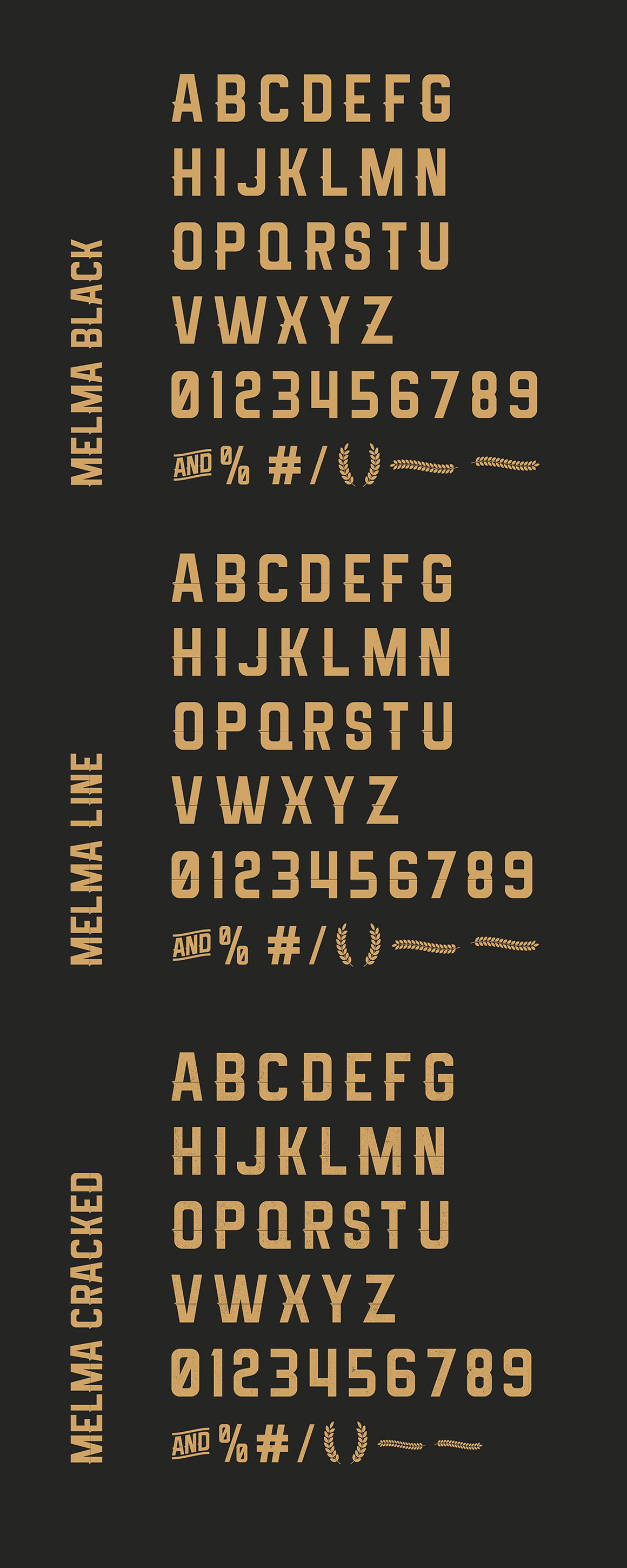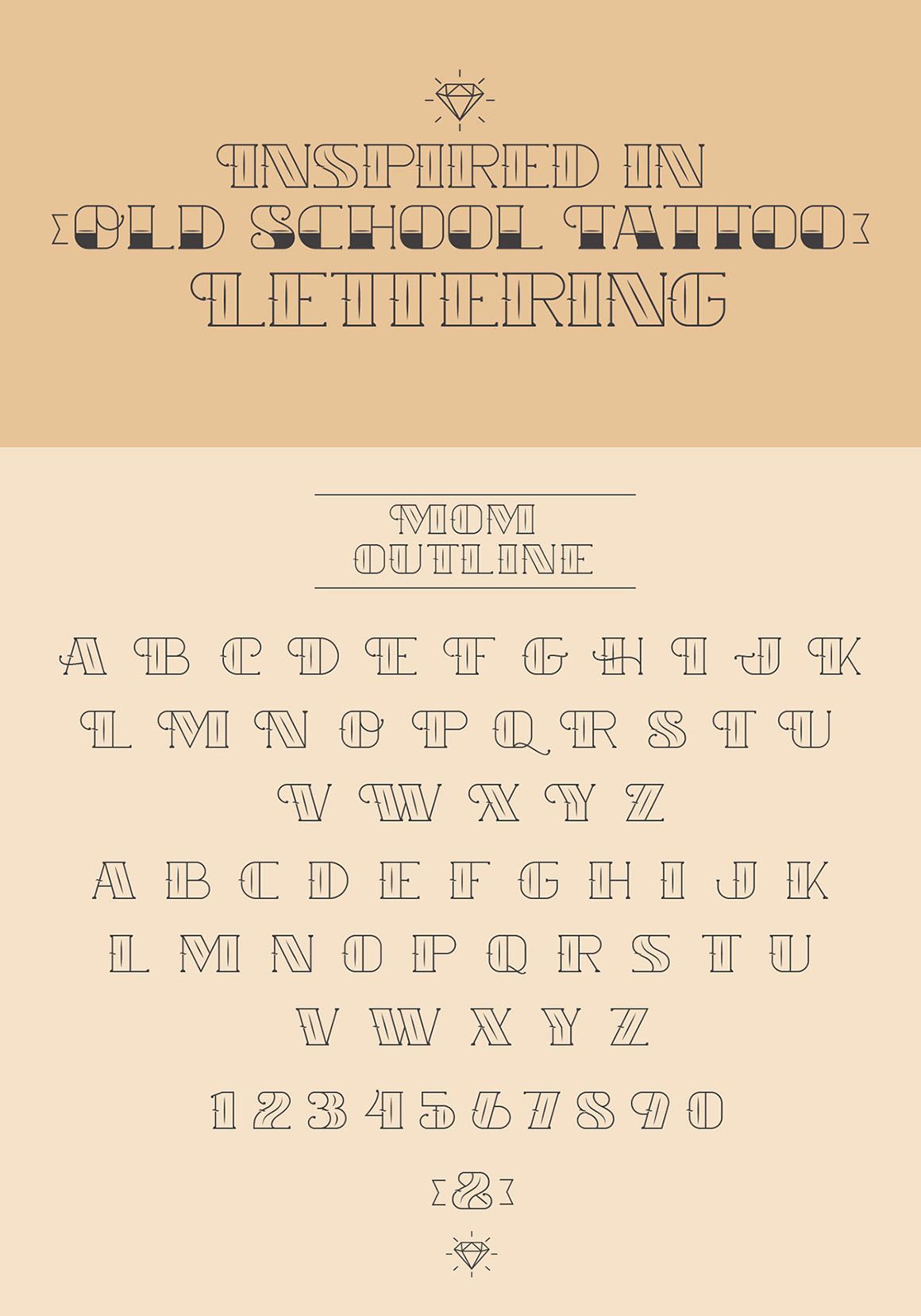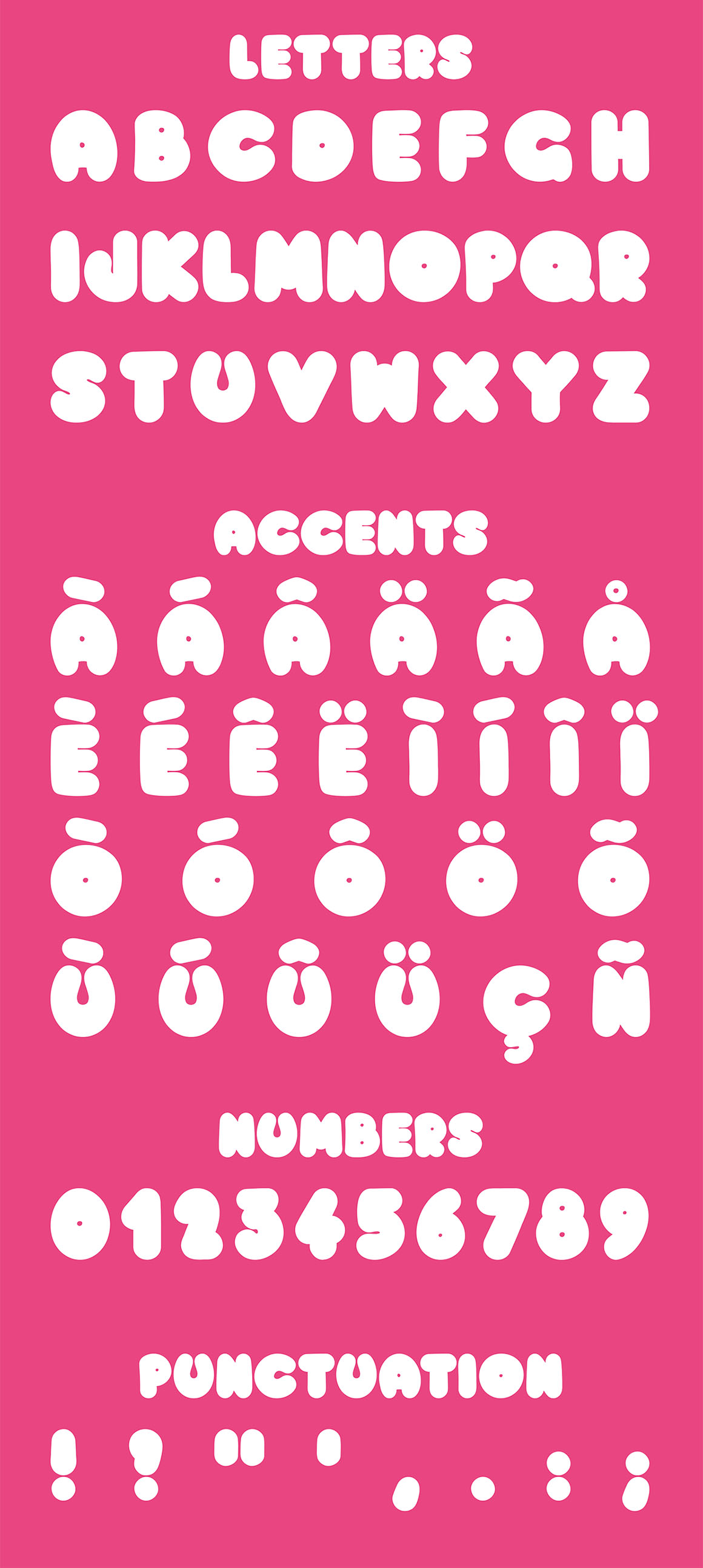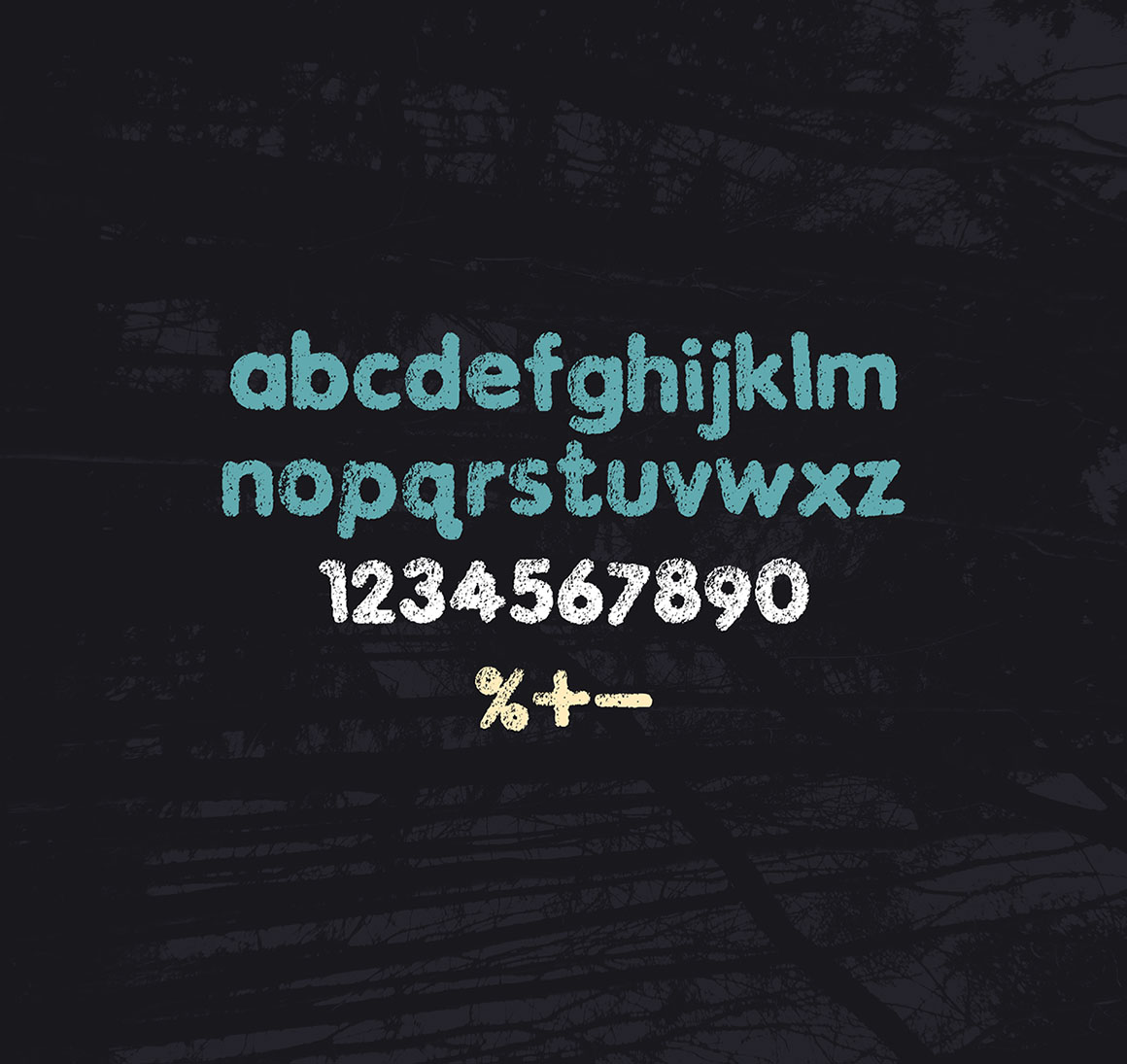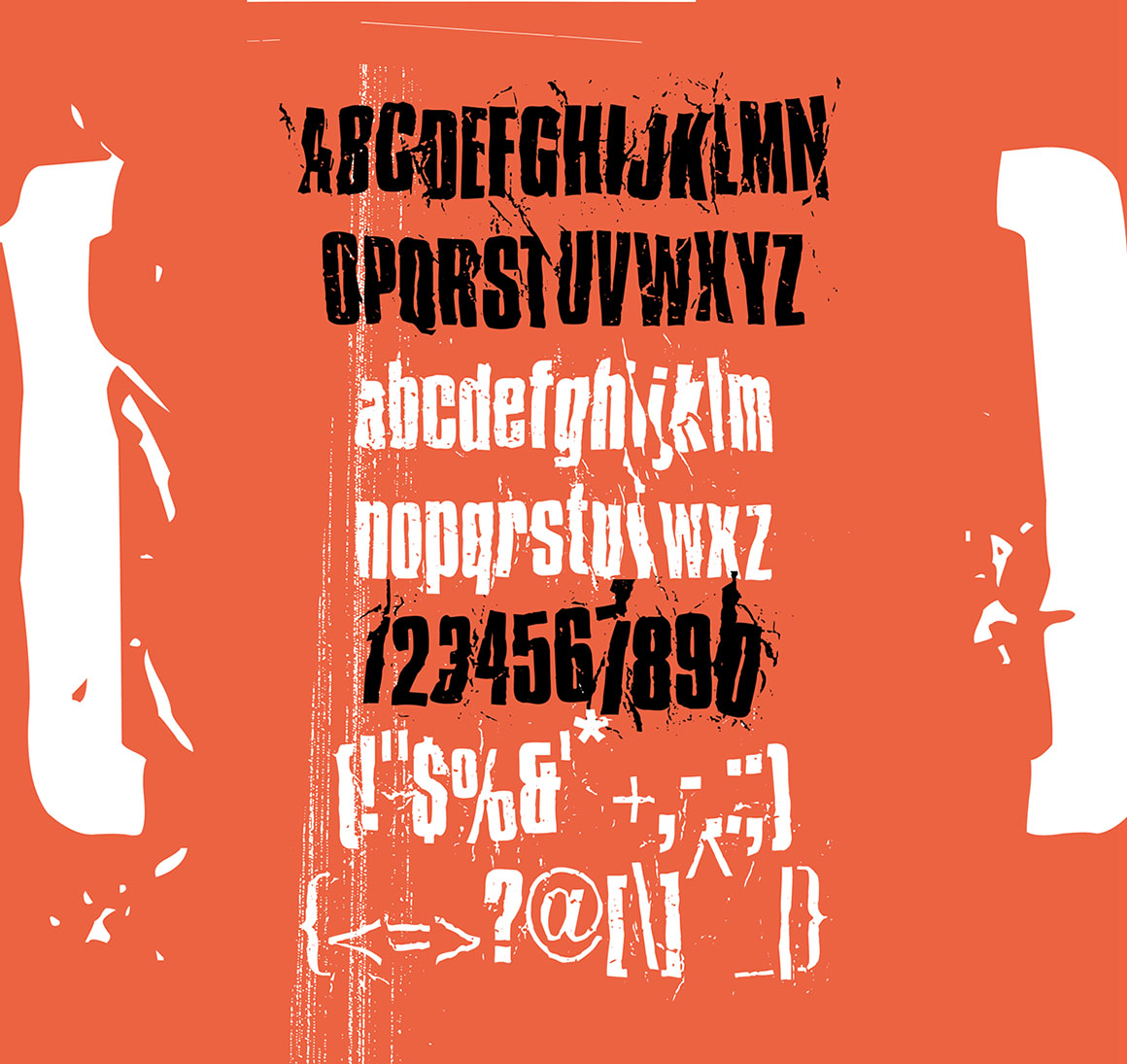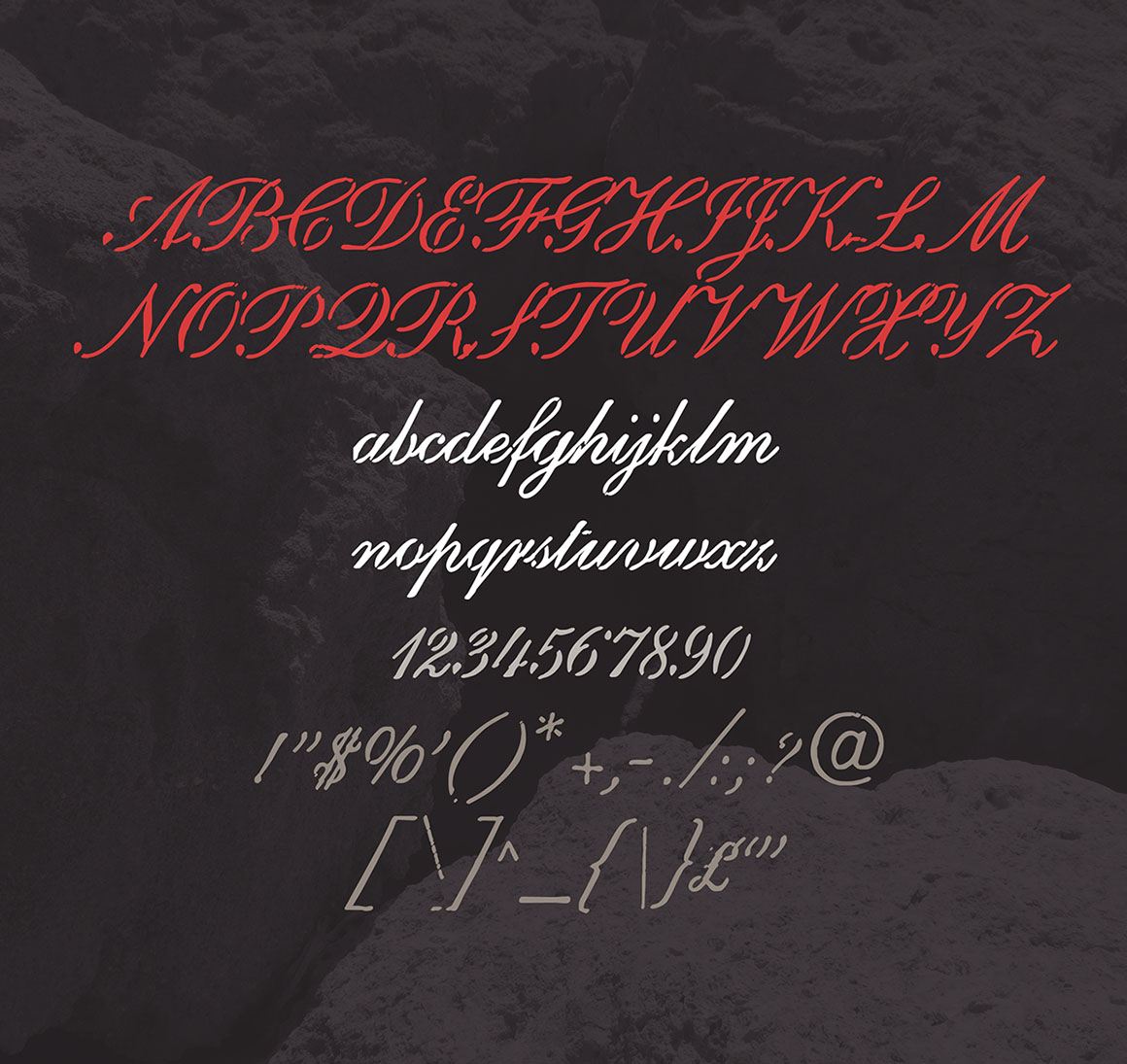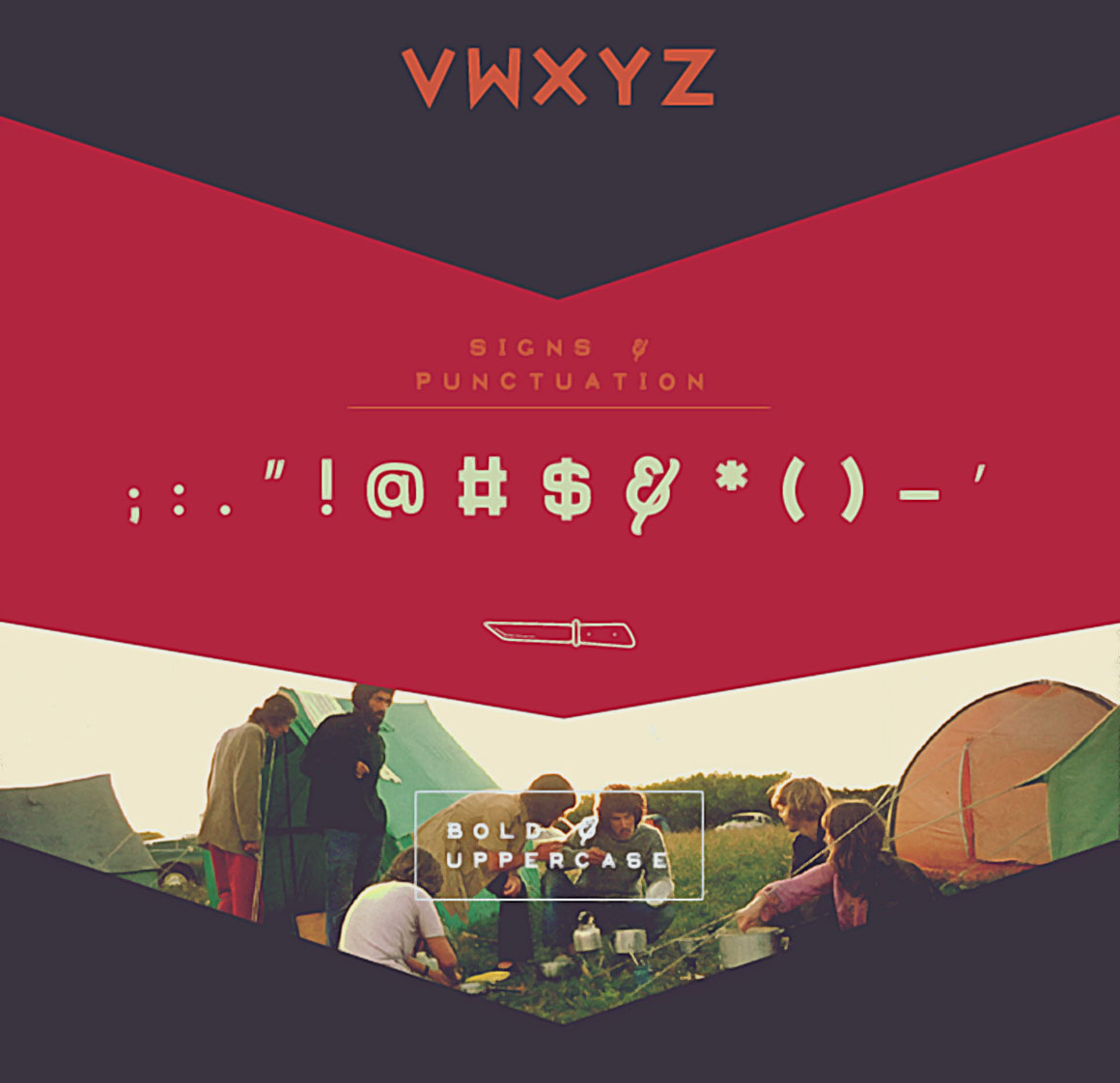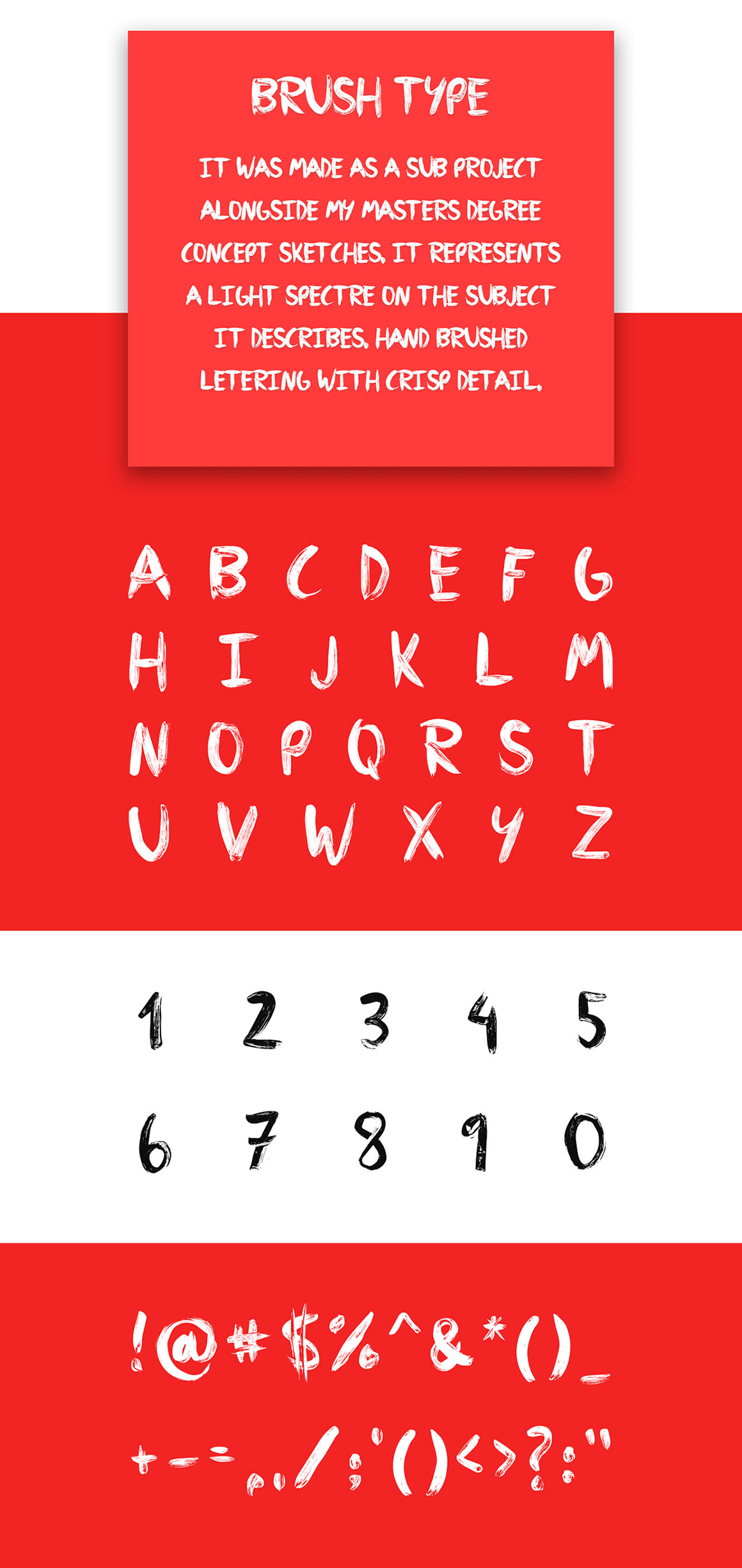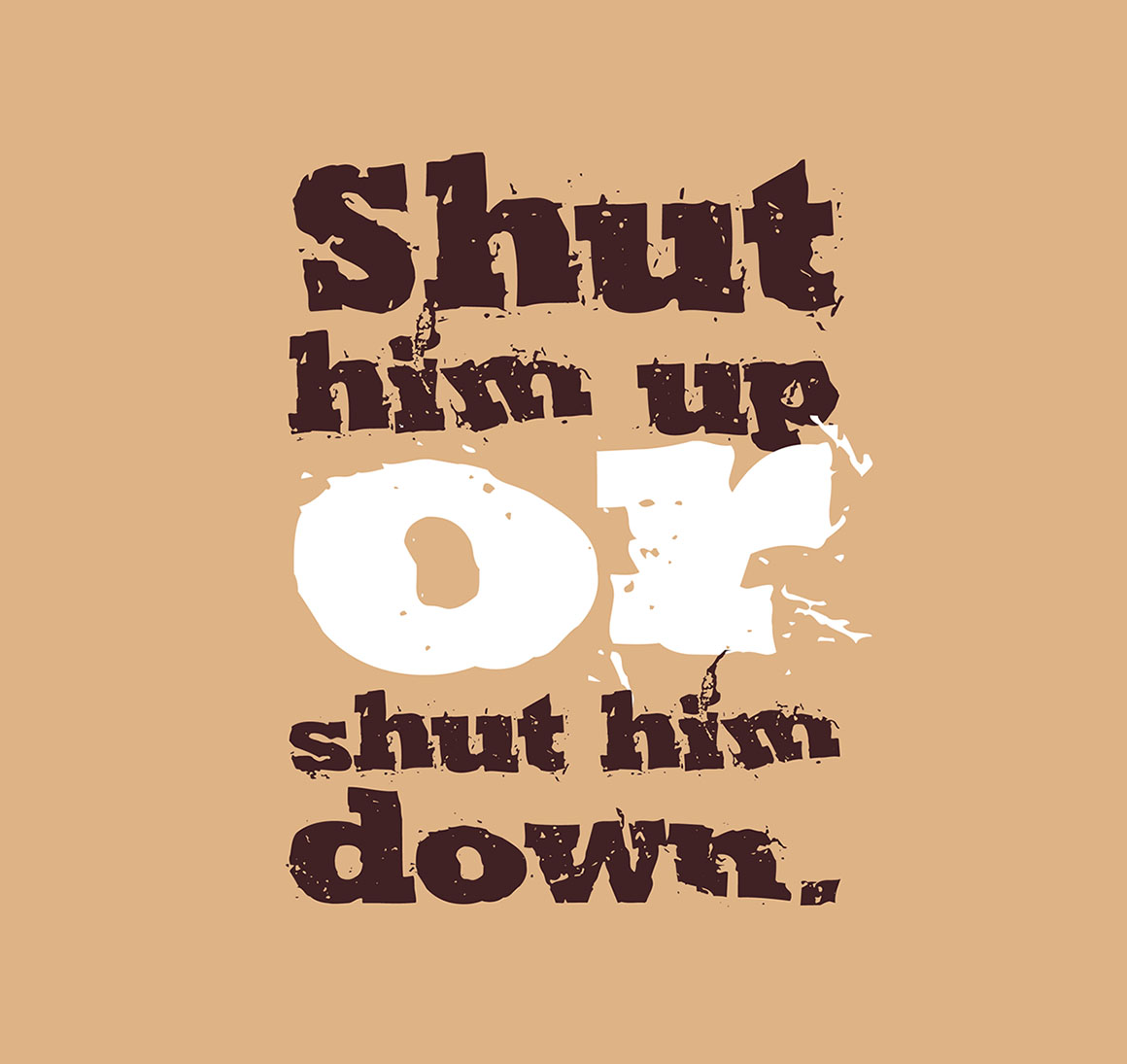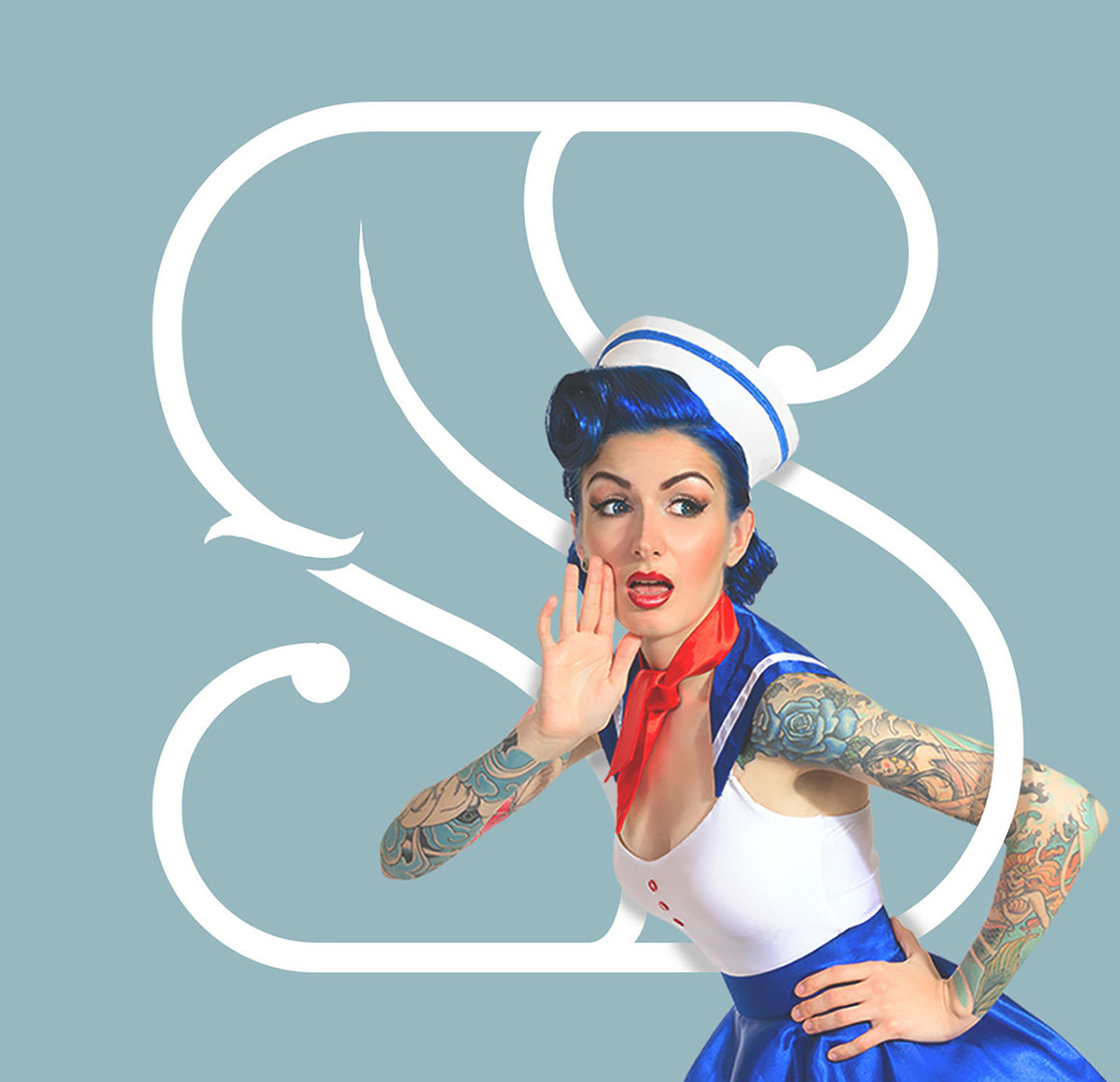
1. Dreamers Brush – Free Font by Get Studio
This cool brush handdrawn custom font is from Get Studio. Great for your new creative style artworks. Download & enjoy 😉
2. Banthers – Free Vintage Font by Agga Swist’blnk
This retro/vintage style custom font is from Agga Swist’blnk. An all caps font / typeface with amazing vintage style. Also contained special characters. Download and enjoy 😉
3. Fabfelt – Free Script Font by Fabien Despinoy
This cool free handdrawn script custom font is from Fabien Despinoy. Download & enjoy 😉
4. Barbaro – Free Serif Font by Iván Núñez
This cool vintage style serif custom font is from Iván Núñez. With unique vintage style and 2 alternatives is great for your new creative projects. Download and enjoy 😉
5. Tostada – Free Font by Iván Núñez
This cool vintage style custom font is from Iván Núñez. With unique vintage style is great for your new creative projects. Download and enjoy 😉
6. Aventura – Free Bold Font by Jimmy Kalman
This cool bold custom font is from Jimmy Kalman. Great for your new retro or vintage projects. Download and enjoy 😉
7. Xplor – Free Typeface by Jimmy Kalman
This cool and funny custom font is from Jimmy Kalman. Great for your new projects. Download and enjoy 😉
8. Curely – Free Handmade Font by Konstantine Studio
This cool and funny custom font is from Konstantine Studio. With unique hand drawn style and great for your new projects. Download and enjoy 😉
9. Furgatorio – Free Font by Aaron Amar
This cool custom font is from Aaron Amar. With unique vintage style and great for your new projects. Download and enjoy 😉
10. Melma – Free Font by Rafa Miguel
This unique custom font is from Rafa Miguel. With 3 styles is great for your new projects. Download and enjoy 😉
11. Mom – Free Retro Font by Rafa Miguel
This unique retro style custom font is from Rafa Miguel. With 2 styles is great for your new projects. Download and enjoy 😉
12. Variane – Free Script Font by Boy Moch Tomi
This cool script custom font is from Boy Moch Tomi. Great for your new creative artworks. Download & enjoy 😉
13. Pelemeshka – Free Font by Cyril Mikhailov
This cool & creative custom font is from Cyril Mikhailov. Great for your new creative style artworks. Download & enjoy 😉
14. Fonarto – Free Sans Serif Font by Locomotype
This cool & creative sans serif custom font is from Arwan Sutanto – Locomotype. Great for your new modern style artworks. Download & enjoy 😉
15. Dpopper – Free Font by Iordanis Passas
This cool bold style custom font is from Iordanis Passas. Great for your new creative projects. Download and enjoy 😉
16. Plume – Free Brush Font by Krisjanis Mezulis & Gatis Vilaks
This cool brush style custom font is from Krisjanis Mezulis & Gatis Vilaks. Download and enjoy 😉
17. Ikra Slab – Free Font by Sergey Godovalov
This cool custom font is from Sergey Godovalov. Download & enjoy 😉
18. Kagura – Free Font by Ezeqviel Ergo
This free custom font is from Ezeqviel Ergo. Download & enjoy 😉
19. Kohta – Free Fontby Ezeqviel Ergo
This free custom font is from Ezeqviel Ergo. Download & enjoy 😉
20. Signify – Free Handmade Font by Conor Leary
This cool hand drawn custom font is from Conor Leary. Great for your new artistic projects. Download and enjoy 😉
21. Chubby – Free Funny Font by Andrea Prina
This cool custom font is from Andrea Prina. With cool & funny style and great for your new creative projects. Download and enjoy 😉
22. Mechano – Free Industrial Font by Andrea Prina
This cool custom font is from Andrea Prina. With cool industrial or geometric style and great for your new creative projects. Download and enjoy 😉
23. Christmas Time – Free Font by Lukasz KuIakowski
This cool Christmas style custom font is from Lukasz KuIakowski. Great for your new Christmas artworks. Download & enjoy 😉
24. JakesFuzzyFelt – Free Grunge Font by Carl Seal
This cool grunge style custom font is from Carl Seal. With unique grunge style and great for your new creative projects. Download and enjoy 😉
25. Repo Pocket – Free Grunge Font by Carl Seal
This cool grunge style custom font is from Carl Seal. With unique grunge style and great for your new creative projects. Download and enjoy 😉
26. Repo Pocket Slab Serif – Free Font by Carl Seal
This cool grunge style custom font is from Carl Seal. With unique grunge style is great for your new creative projects. Download and enjoy 😉
This free modern serif custom font is from Tshepo Mosoeu. Great for your new modern or creative style artworks. Download & enjoy 😉
30. Kontainer – Free Futuristic Font by Kash Singh
This free futuristic style custom font is from Kash Singh. Great for your new modern or futuristic style artworks. Download & enjoy 😉